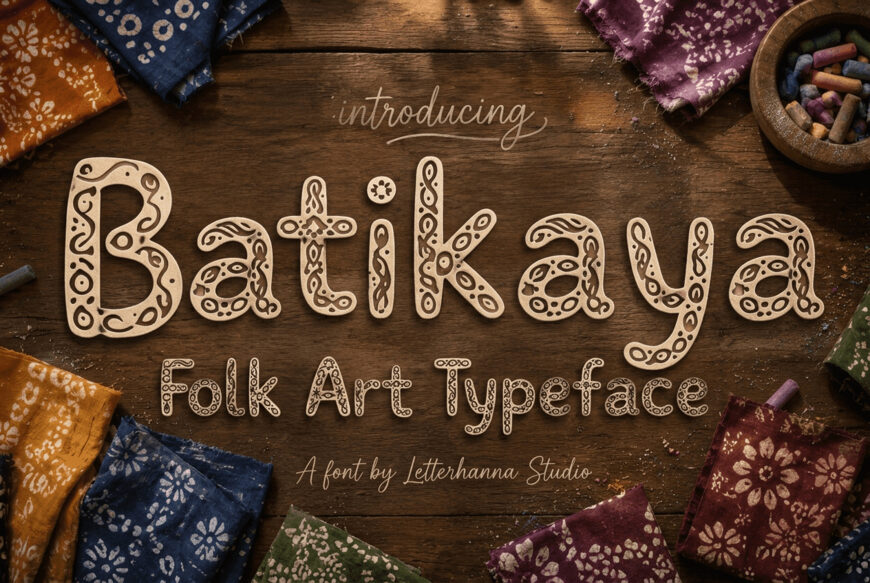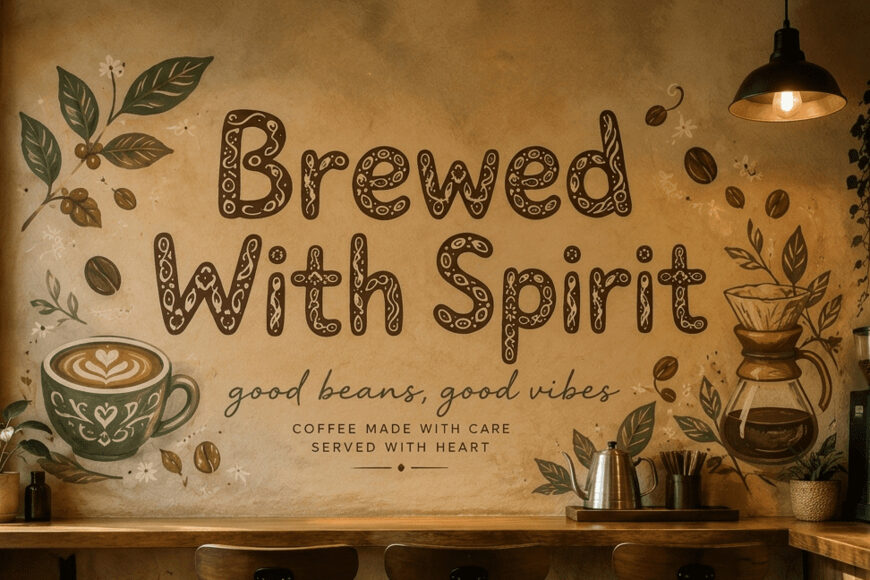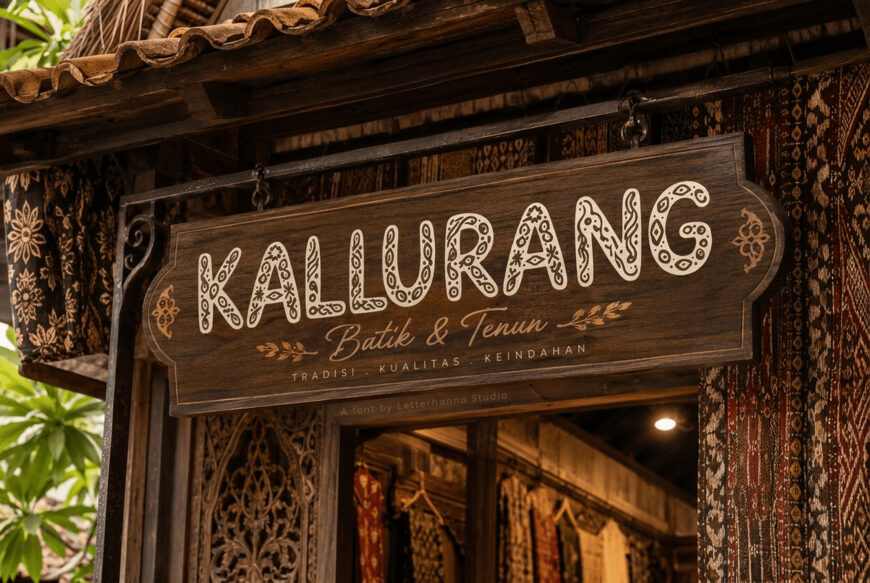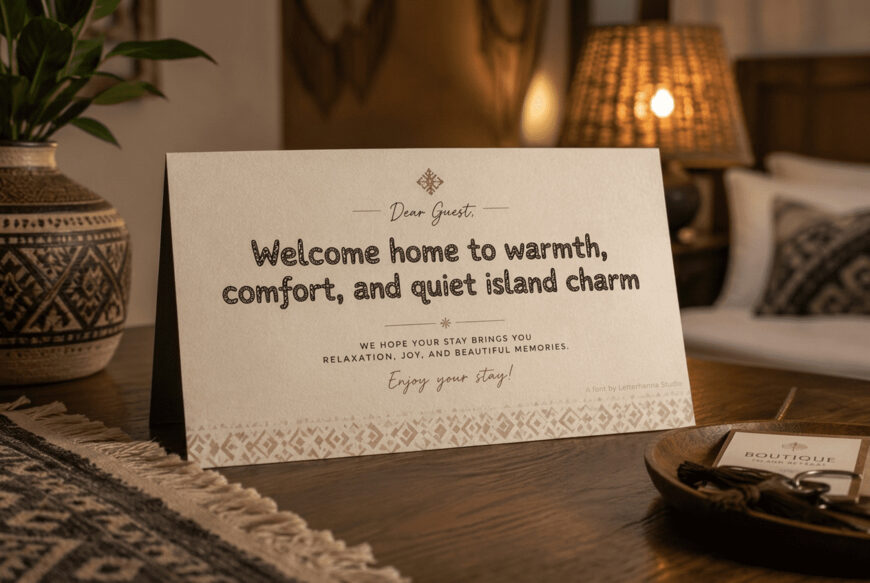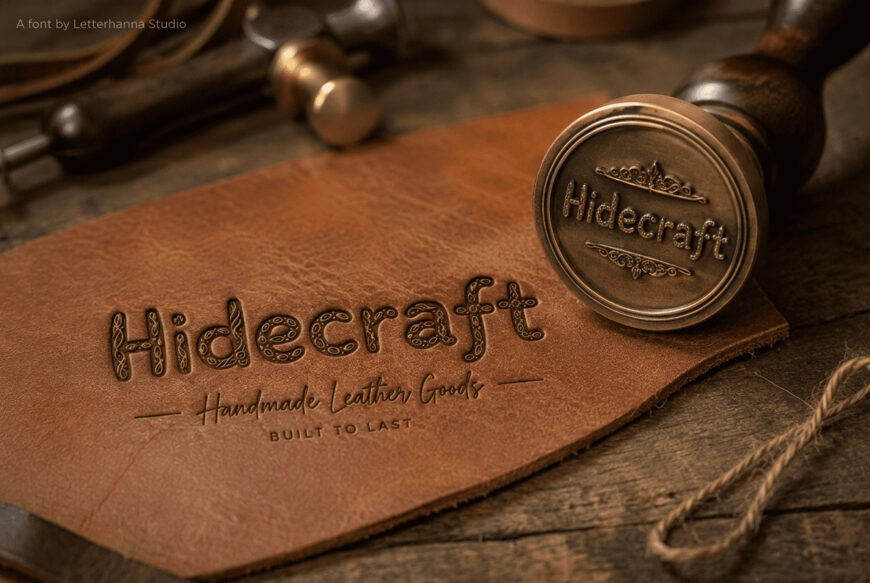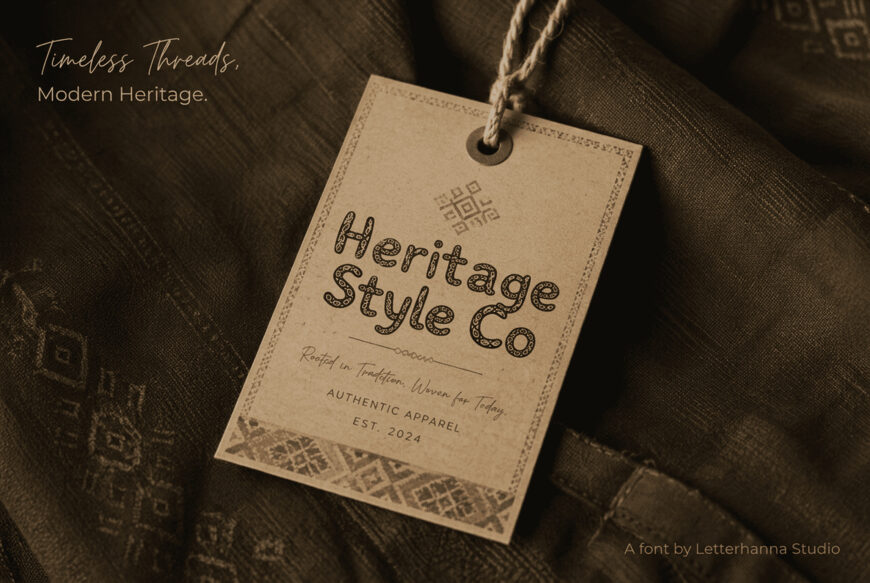
Batikaya Font
Batikaya is a bold folk-art display font inspired by the patterns of traditional batik textiles. Its chunky, rounded letterforms are filled with hand-drawn dots, flowers, waves, and spirals, turning every word into a miniature piece of textile art.
Combining readable shapes with intricate ornamental details, Batikaya feels warm, handcrafted, and nostalgic. It is ideal for posters, headlines, packaging, and brands seeking a strong, playful, and culturally inspired visual identity.